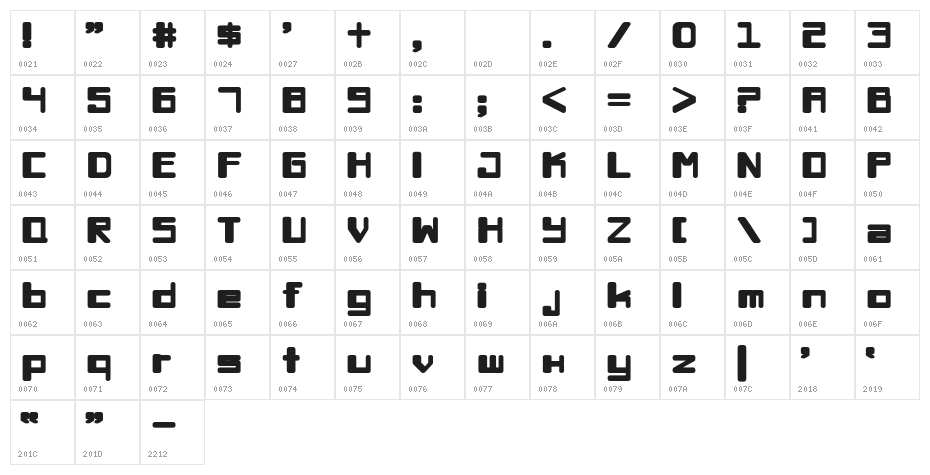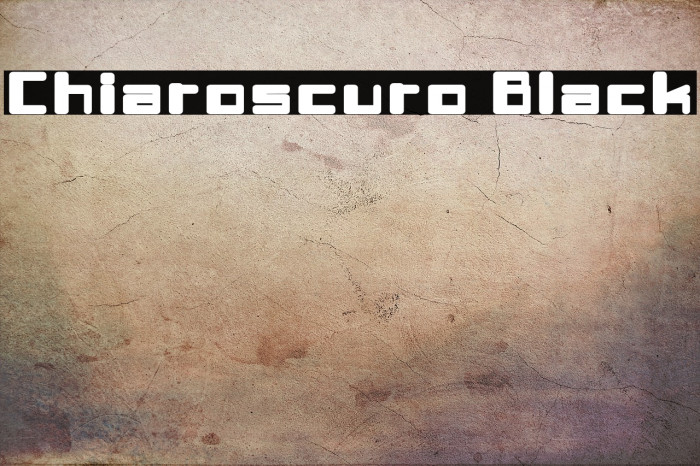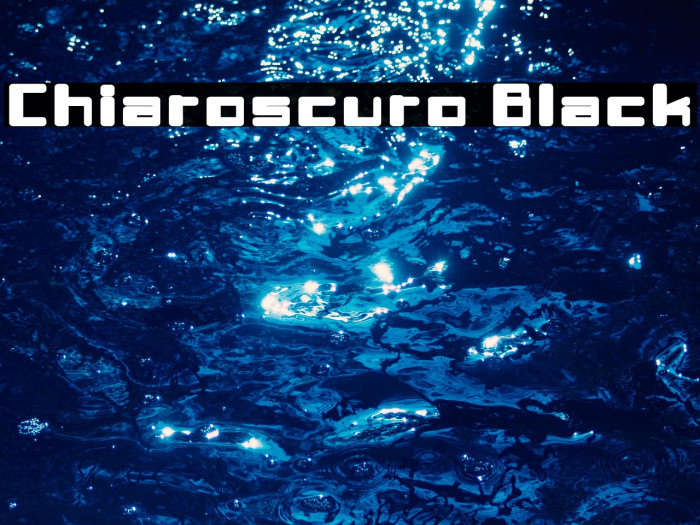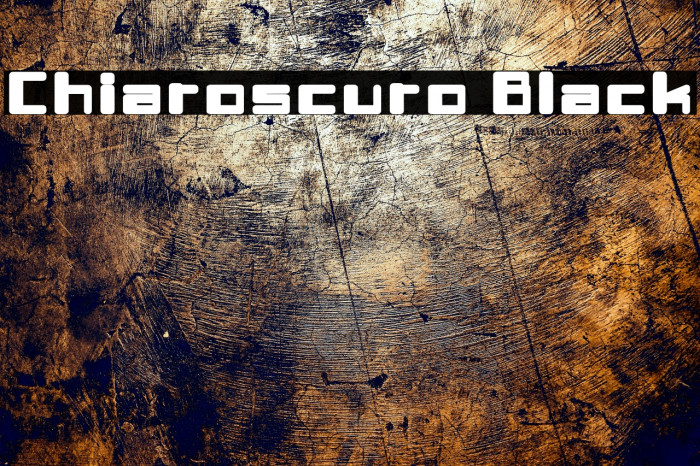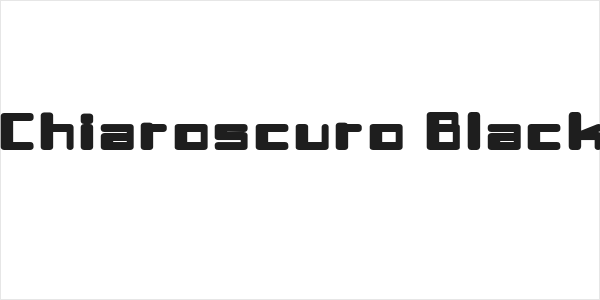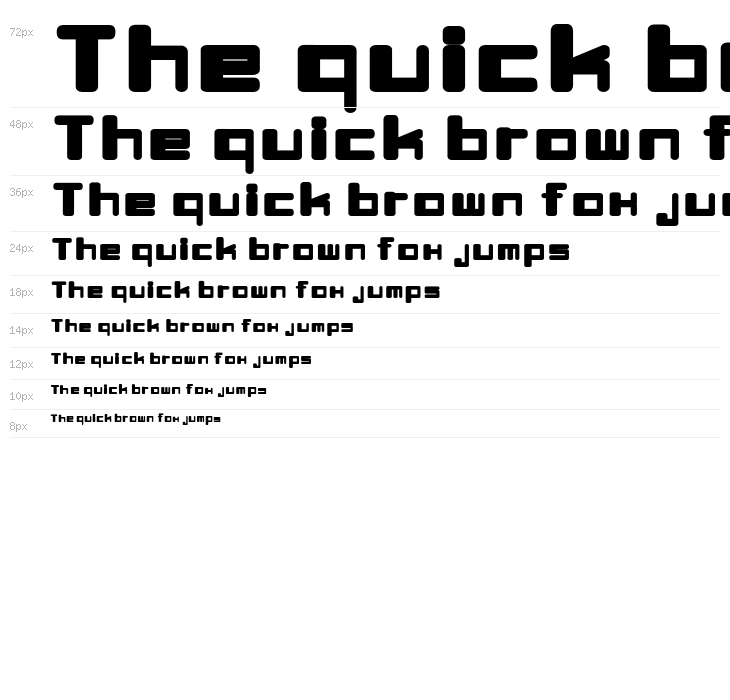
Chiaroscuro-Black Font
Chiaroscuro-Black Description
This font features a bold and rounded design with a modern and playful aesthetic. The characters are uniformly thick, giving it a strong presence and making it highly legible. The rounded edges soften the overall look, adding a friendly and approachable feel. The uppercase and lowercase letters maintain a consistent style, with a slight geometric influence visible in the uniformity of the strokes. The numerals and special characters follow the same design principles, ensuring cohesiveness across all elements. This font is ideal for projects that require a bold statement while maintaining a casual tone.
| Proposed Projects | Ideal for branding, headlines, posters, and any design that requires a bold and friendly typeface. |